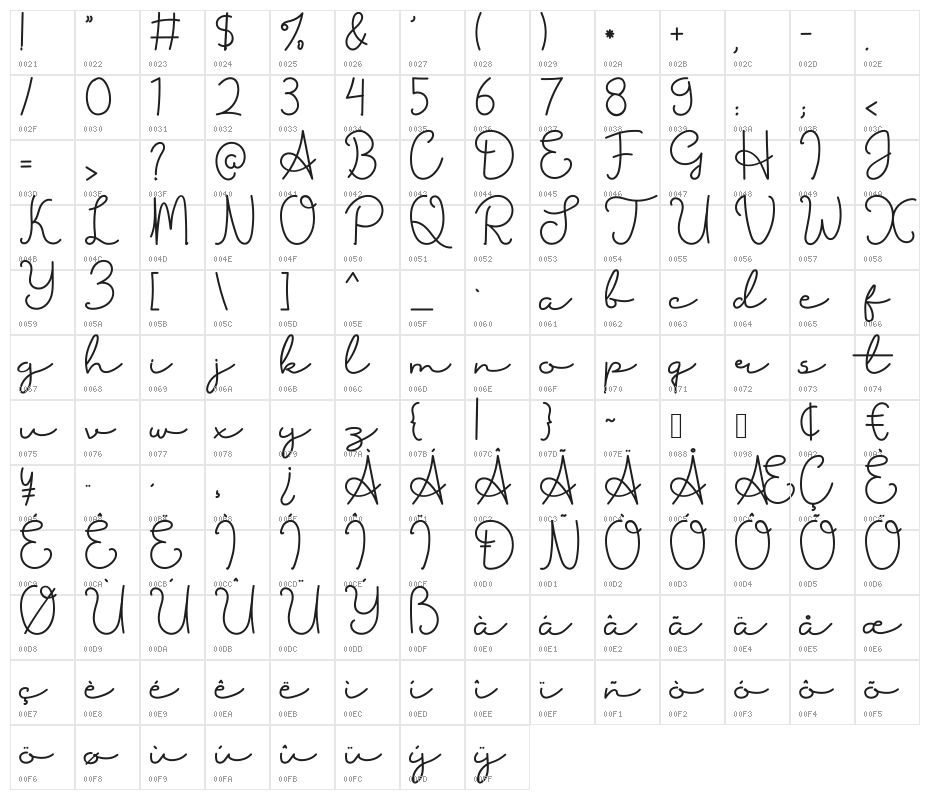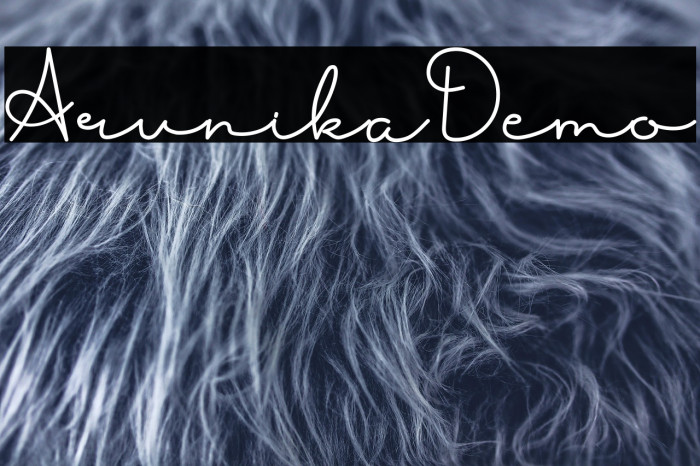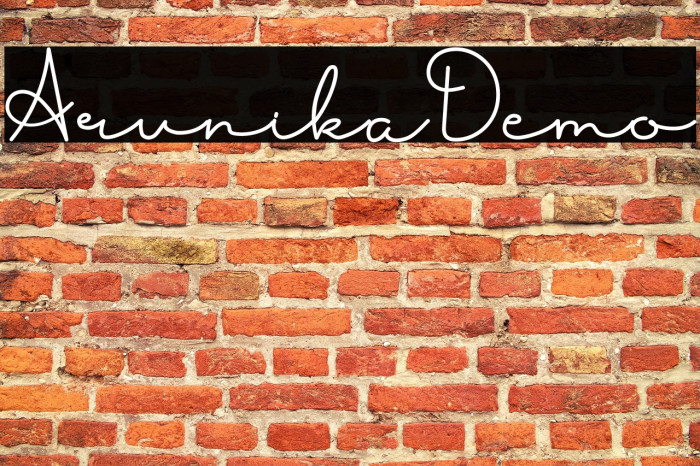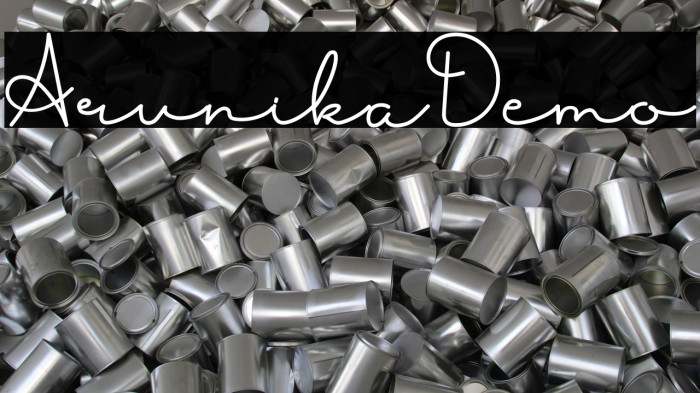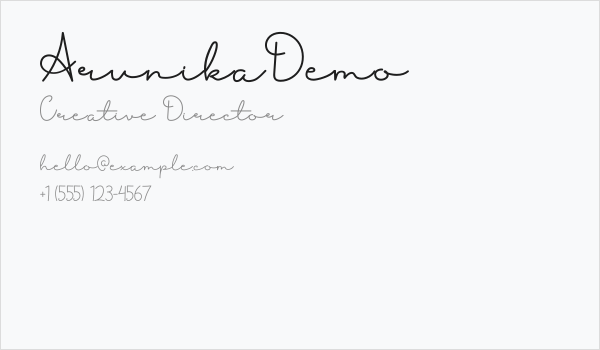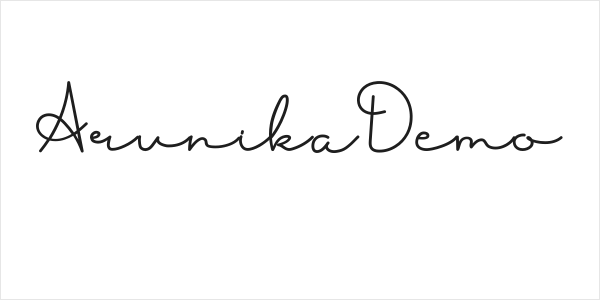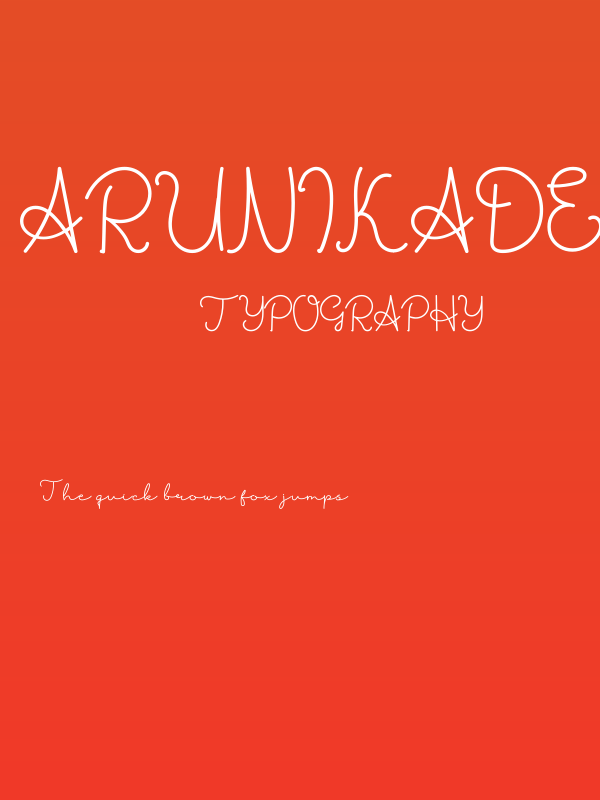
ArunikaDemo Font
ArunikaDemo Description
This font features a playful and whimsical handwritten style, characterized by its flowing, cursive-like letterforms. The uppercase letters exhibit a charming looped design, while the lowercase letters maintain a consistent, smooth flow. The numerals are distinct and easy to read, with a slightly exaggerated height that adds to the font's overall playful aesthetic. Special characters are integrated seamlessly, maintaining the font's cohesive style. The strokes are consistent in width, providing a balanced and harmonious appearance. This font is ideal for projects that require a personal touch or a creative flair.
| Use Case | Headlines, Creative projects, Personal branding |
| Proposed Projects | Greeting cards, invitations, children's books, creative branding, and social media graphics. |